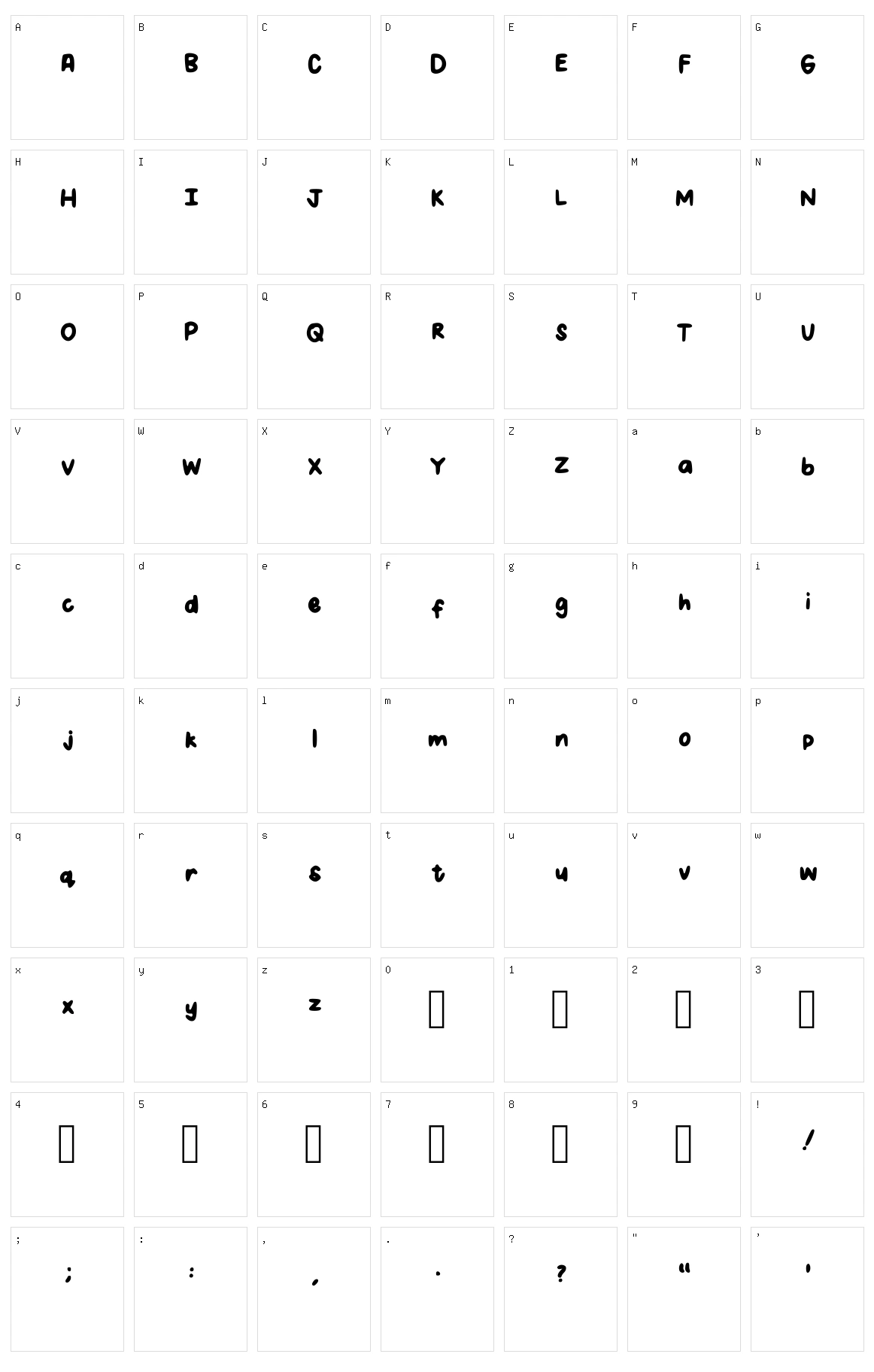
The free font Kau Bubbly is carefully designed by Kauthar Pediongco, showcasing a thoughtful balance of creativity and usability and falls under the Script font style. When you download the ZIP file, it contains only 5.63 KB of font files, making it lightweight and quick to download. Please review the license details below to understand permitted usage and distribution rights. If license information is not available, we recommend using this font for personal projects only or contacting the author directly for commercial usage permissions.